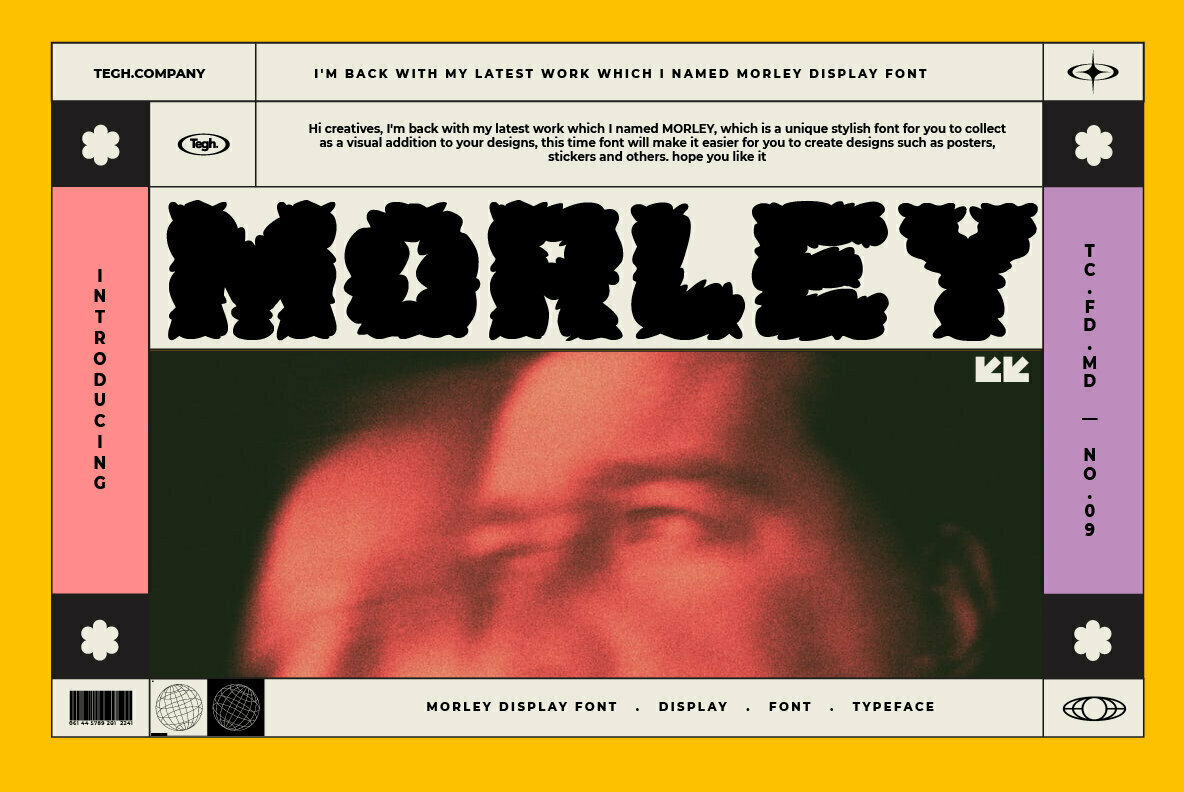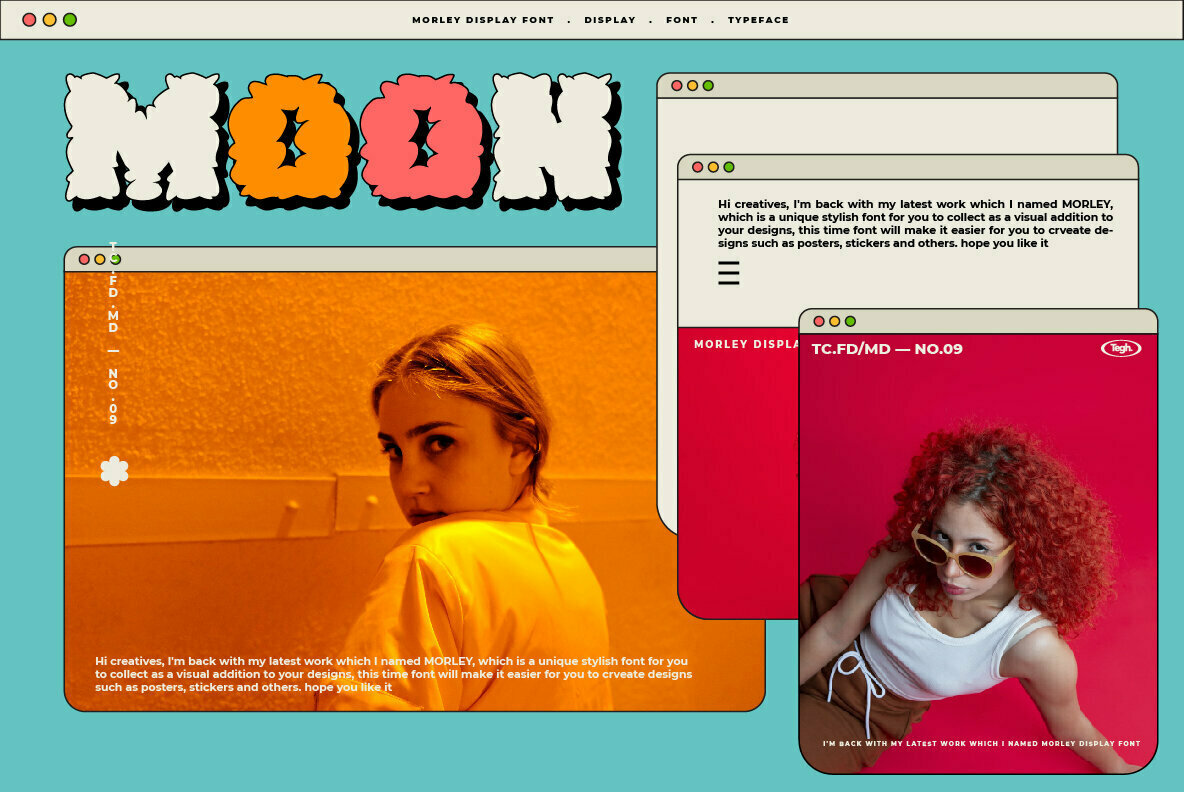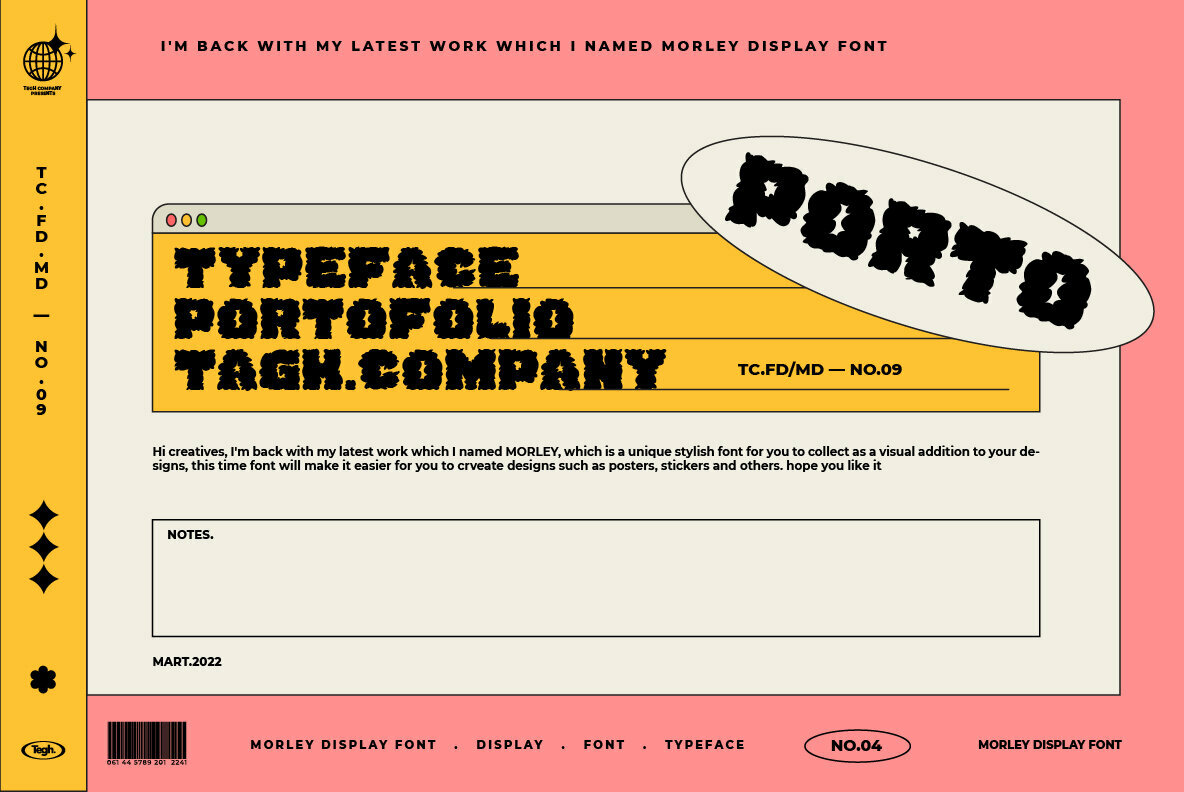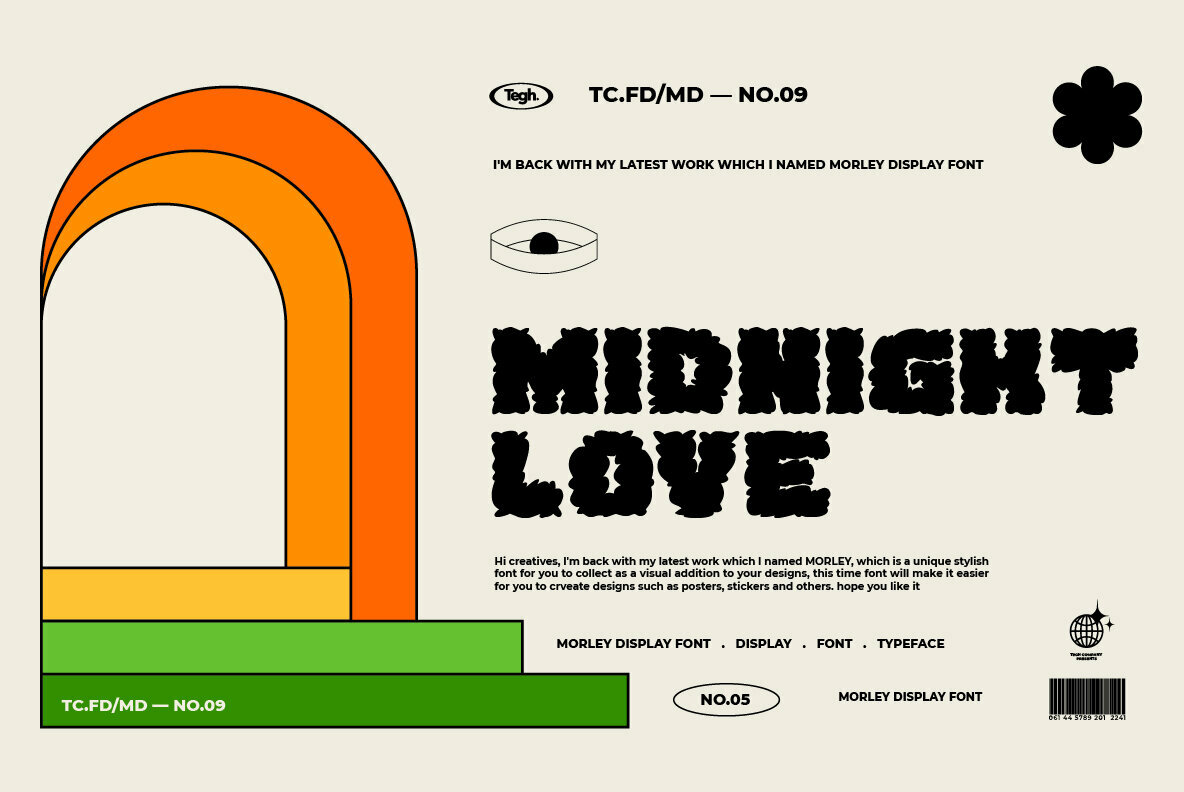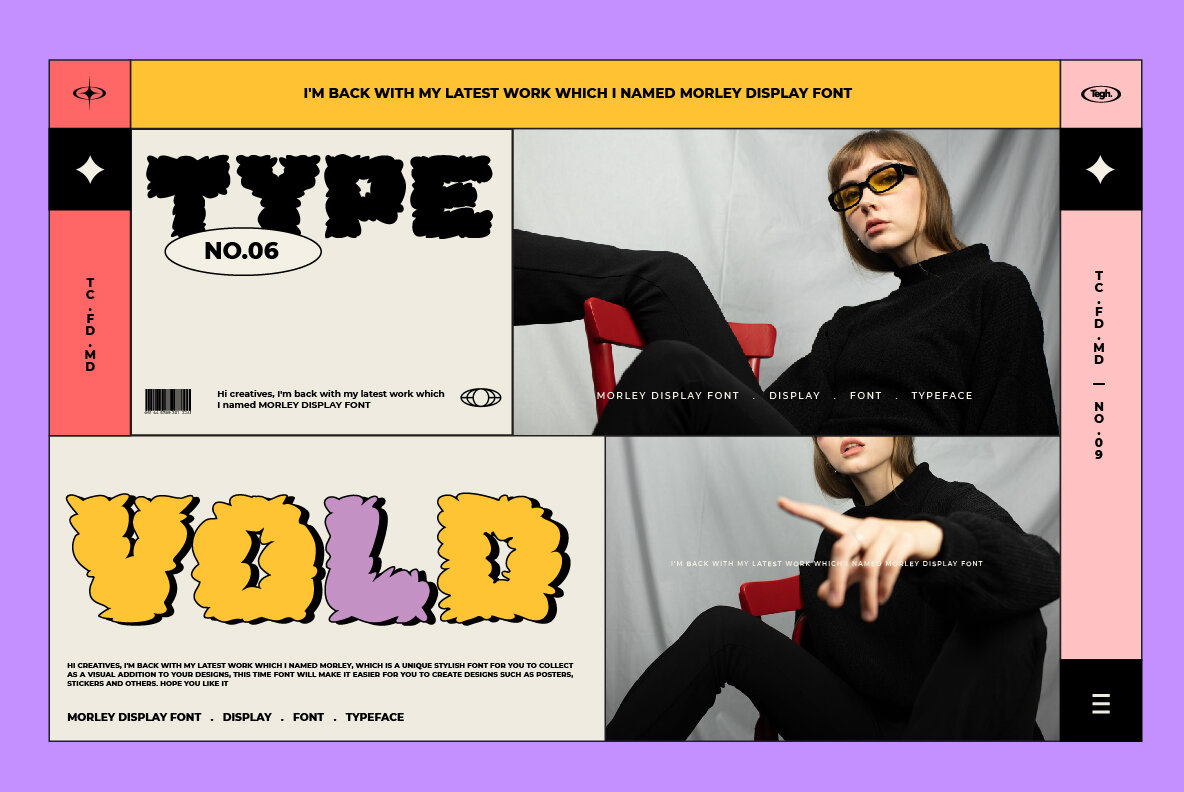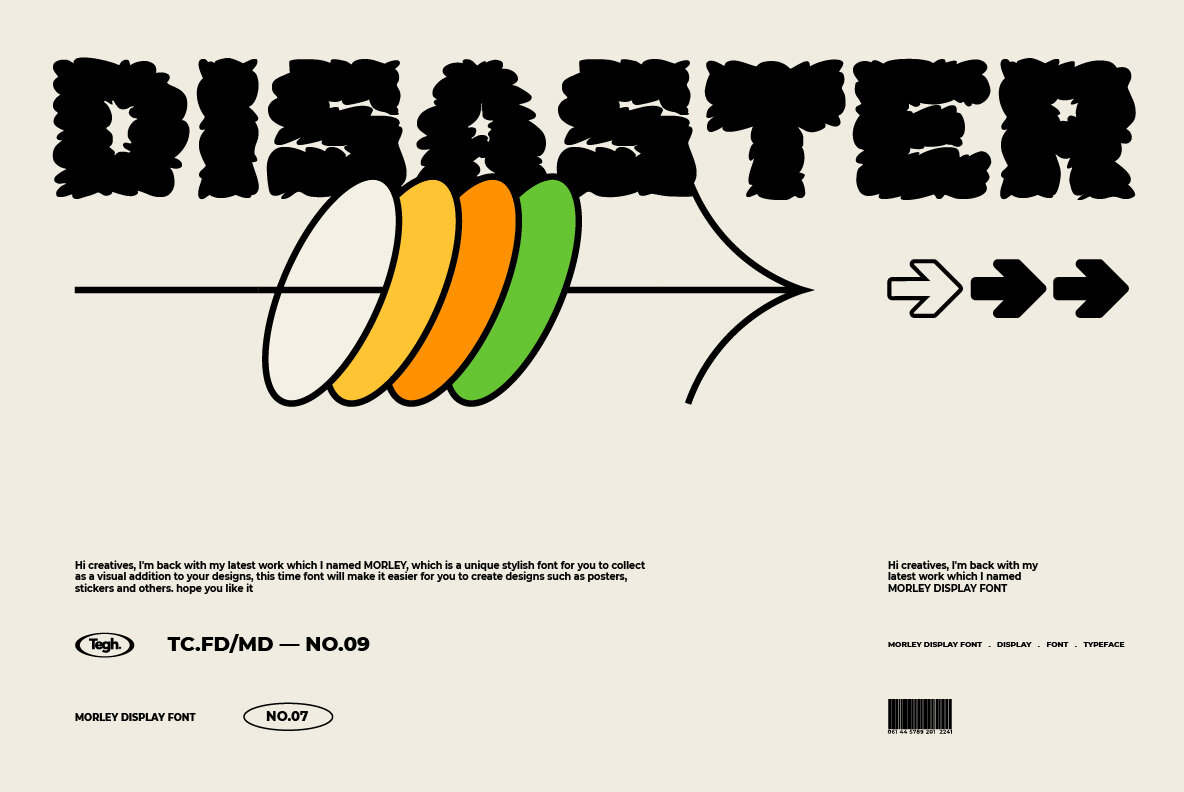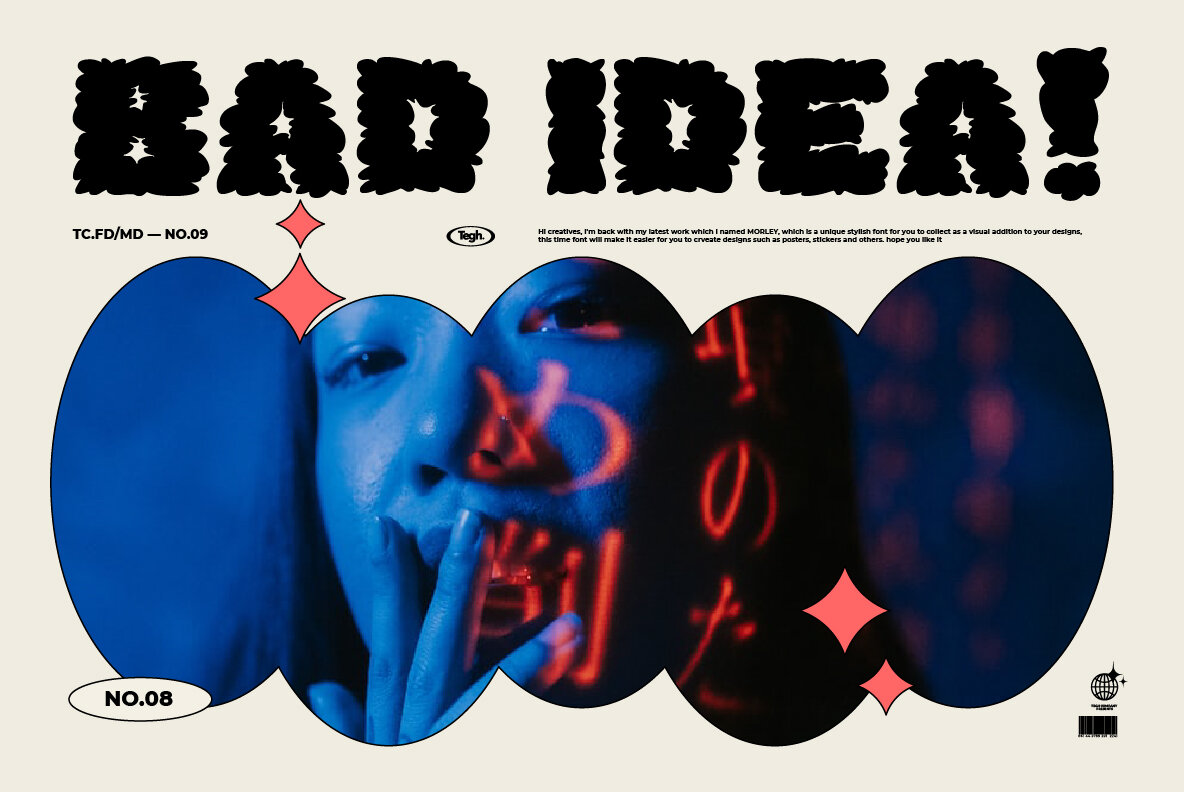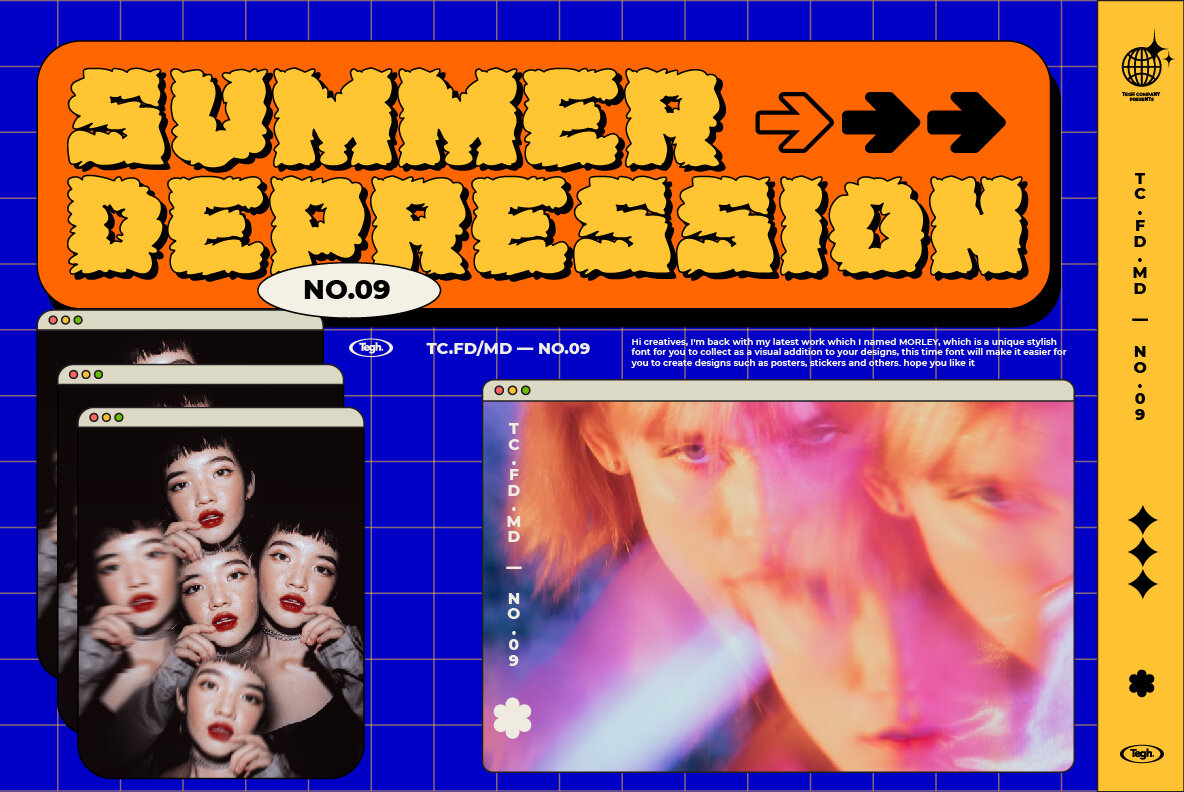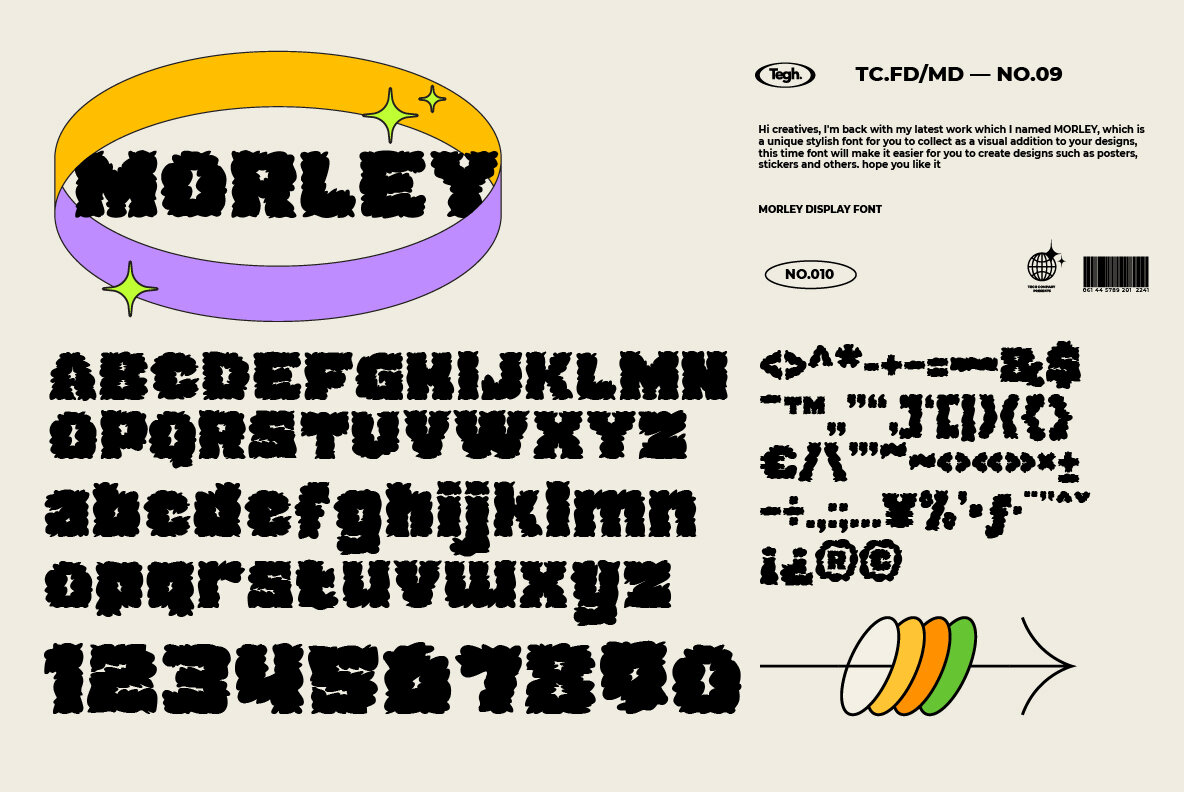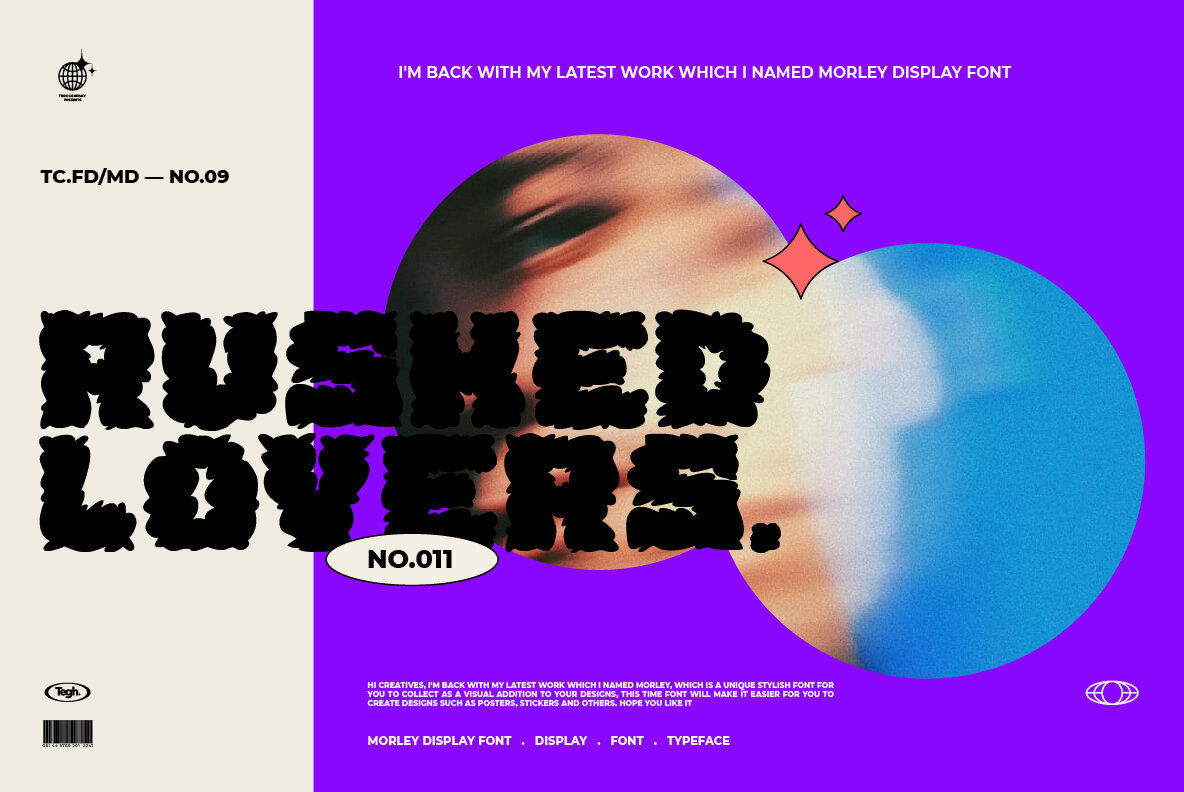
MORLEY Font
Morley, a distinctive display font, presents a remarkable balance of style and function. This font adds a visually compelling element to diverse design projects, from posters to digital artwork. Its bold letterforms exude confidence, making it an excellent choice for projects that demand attention without sacrificing clarity.Morley Display: A Bold Statement in Typography